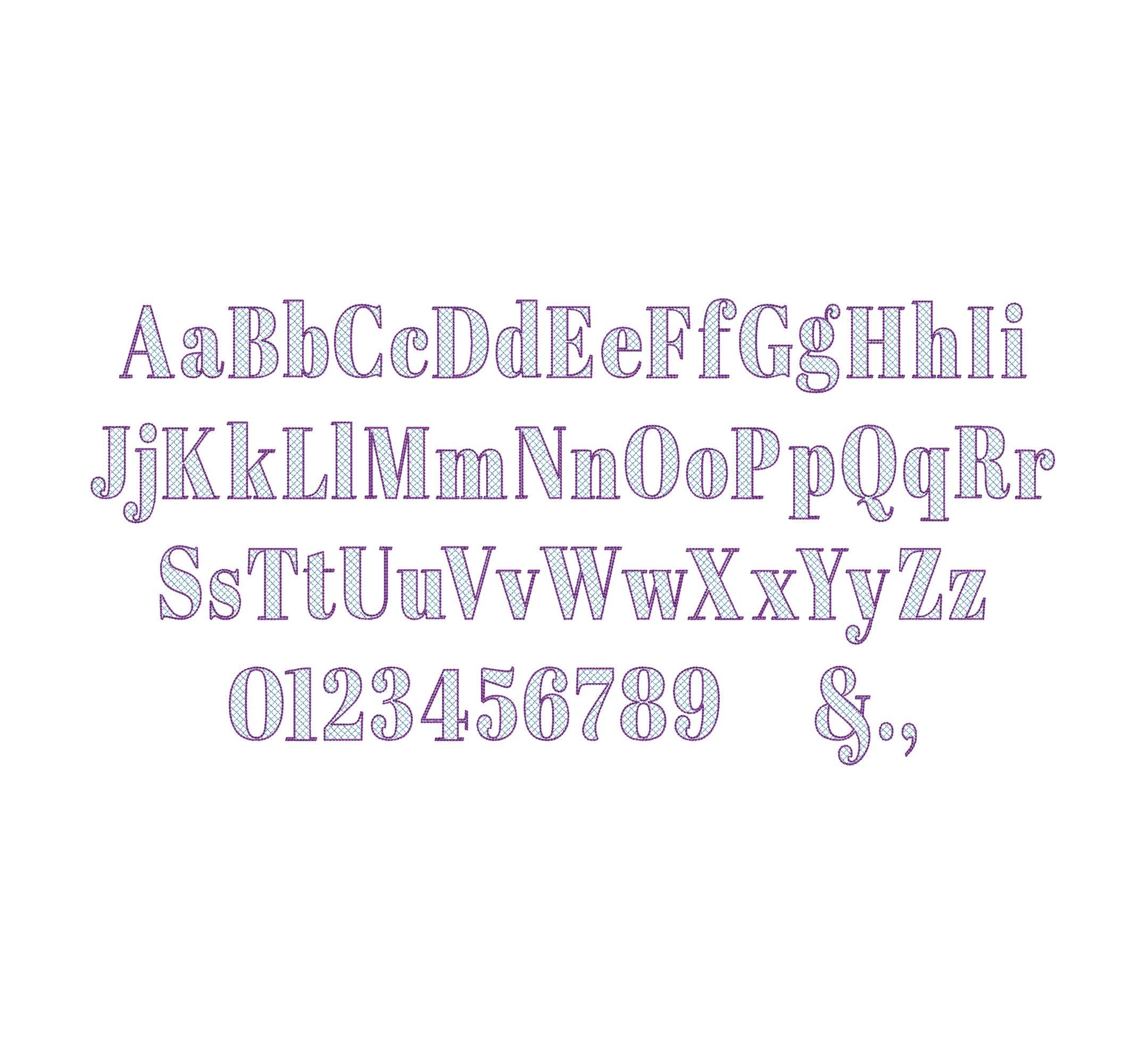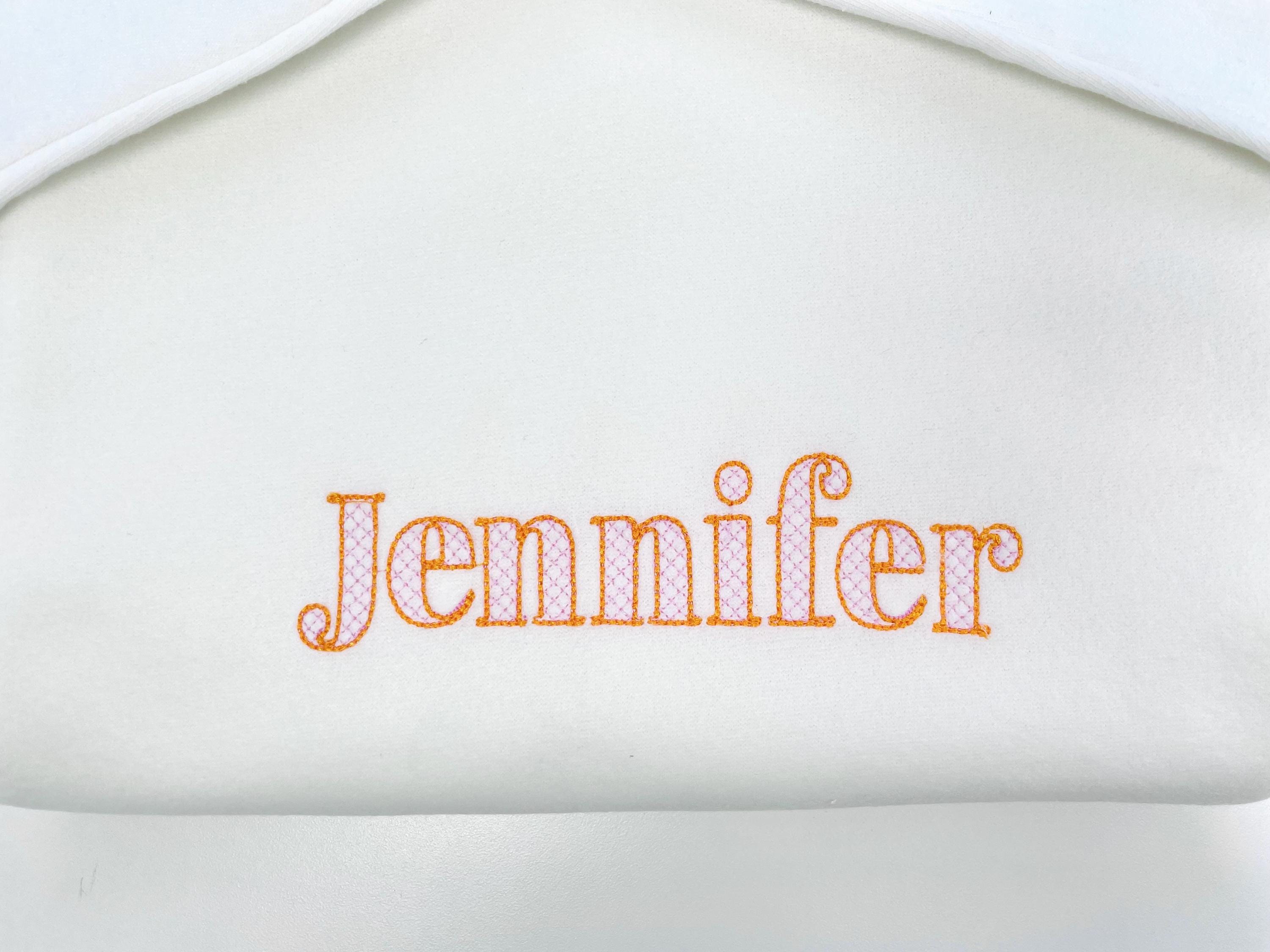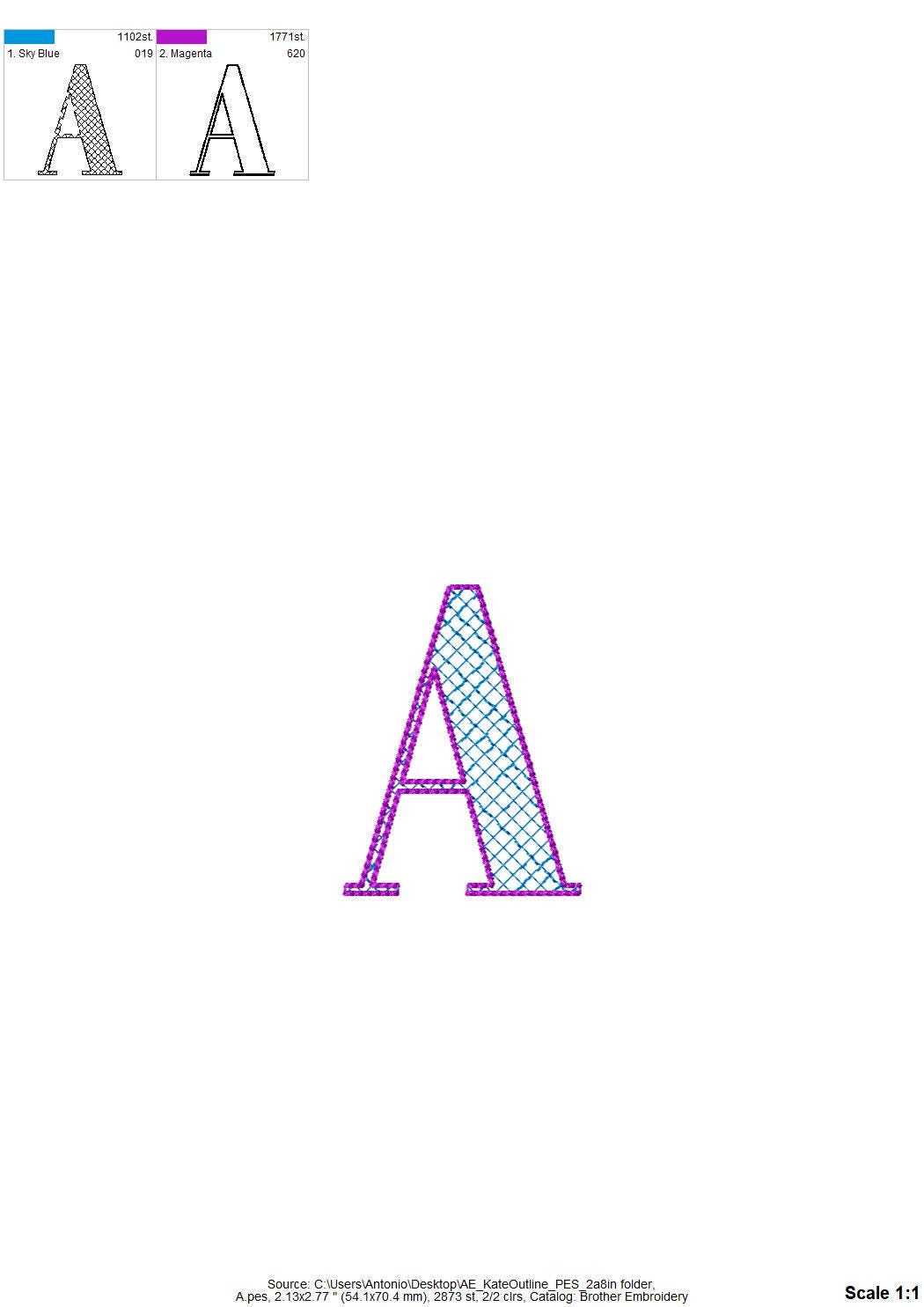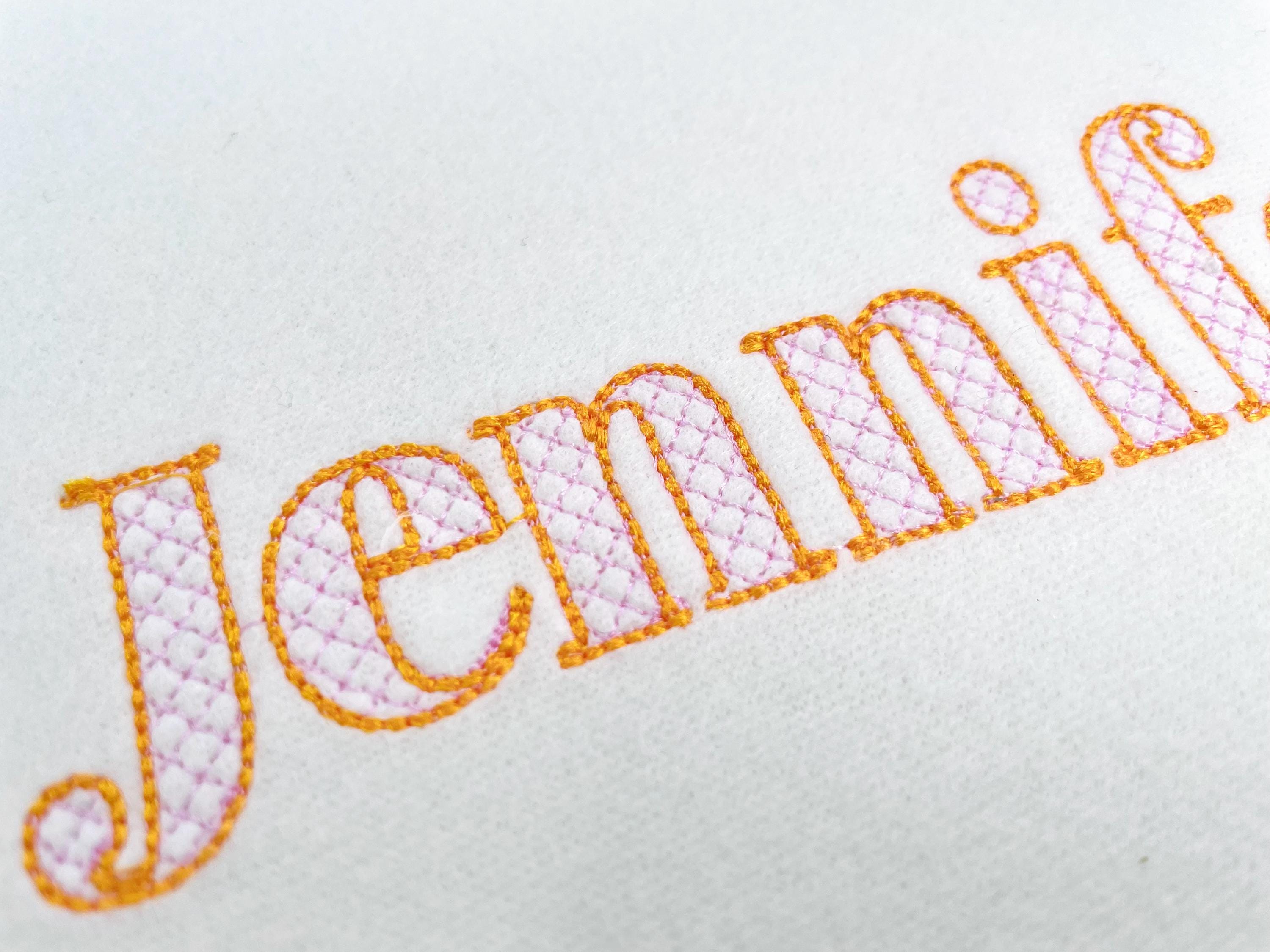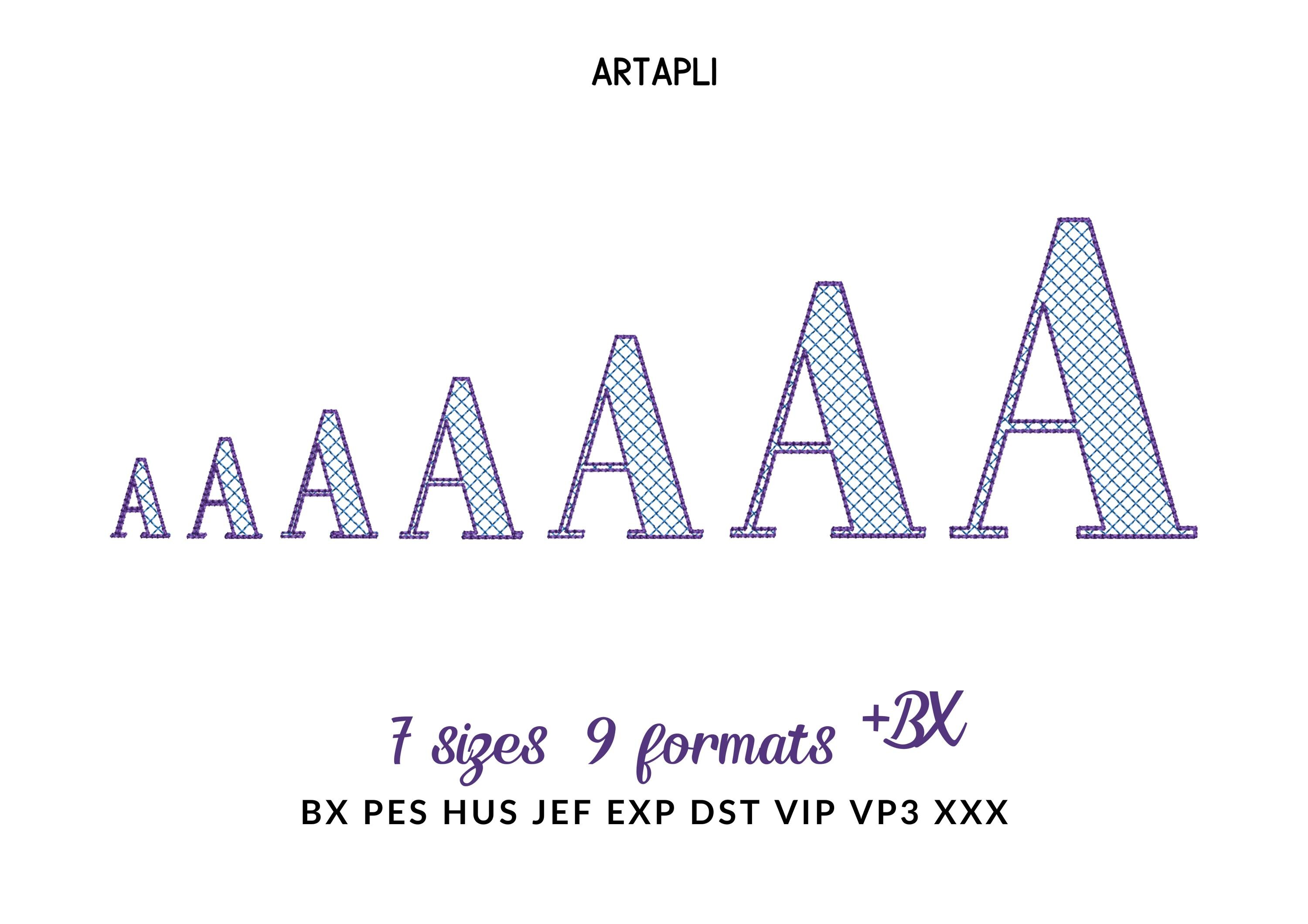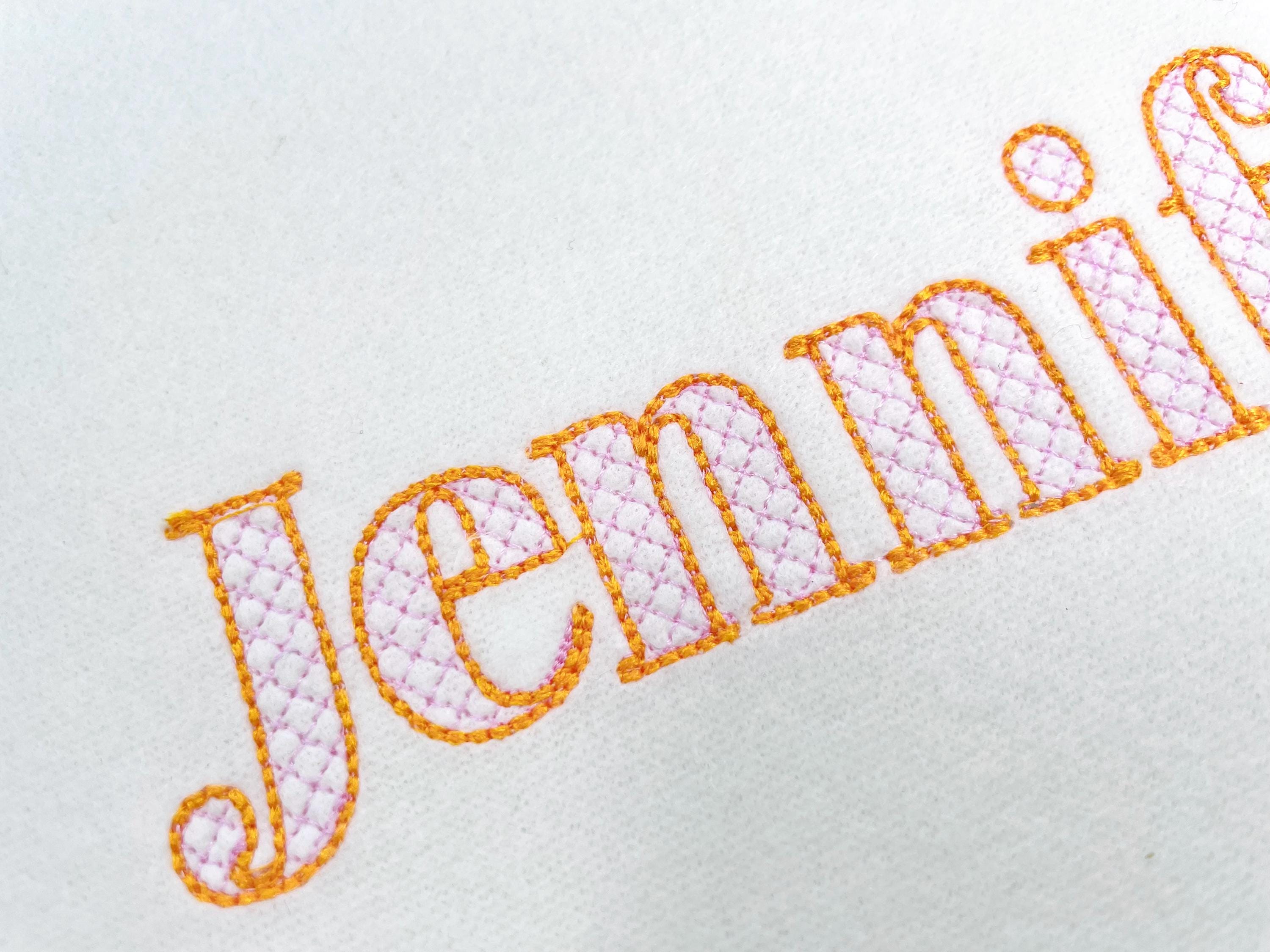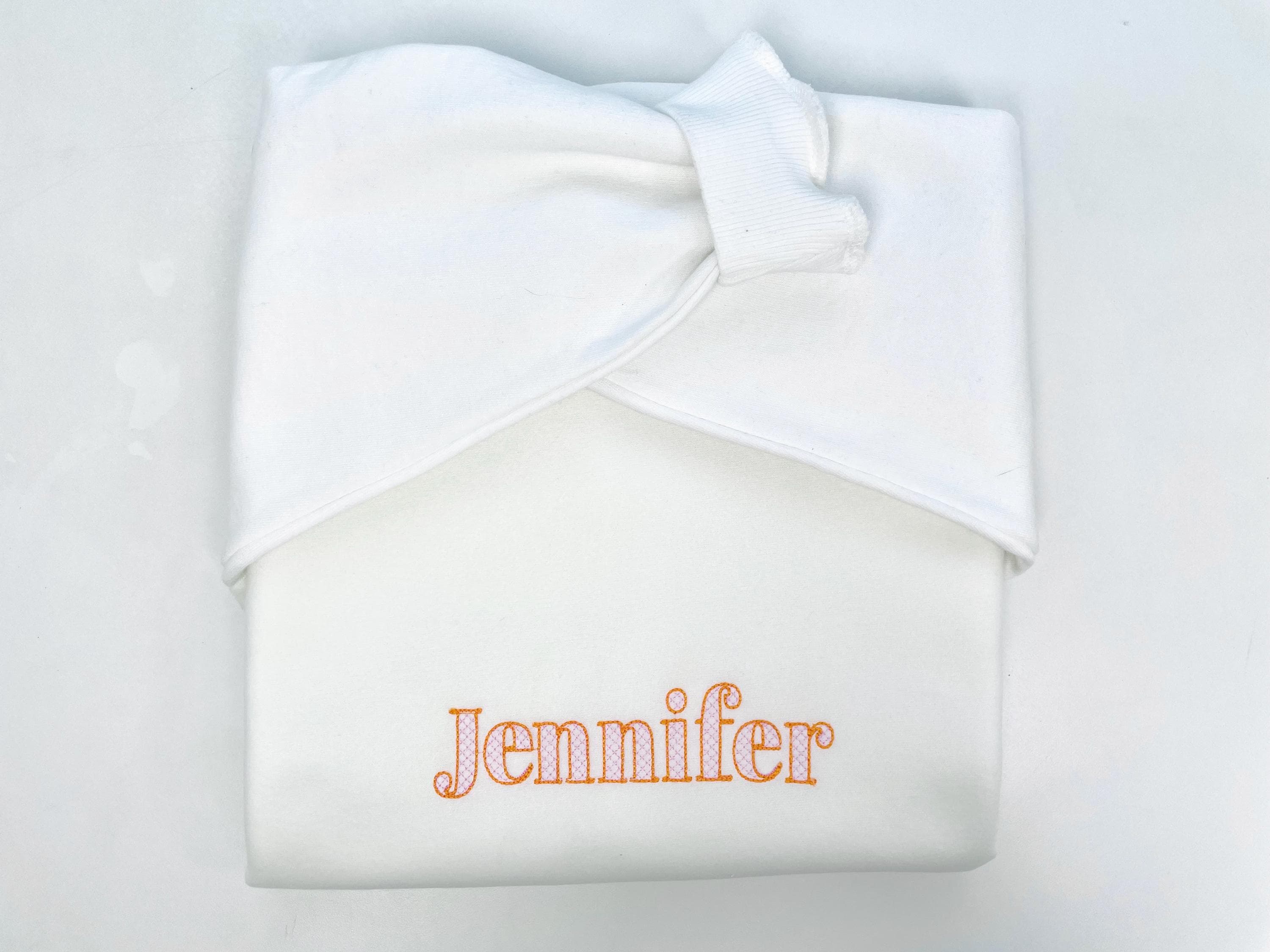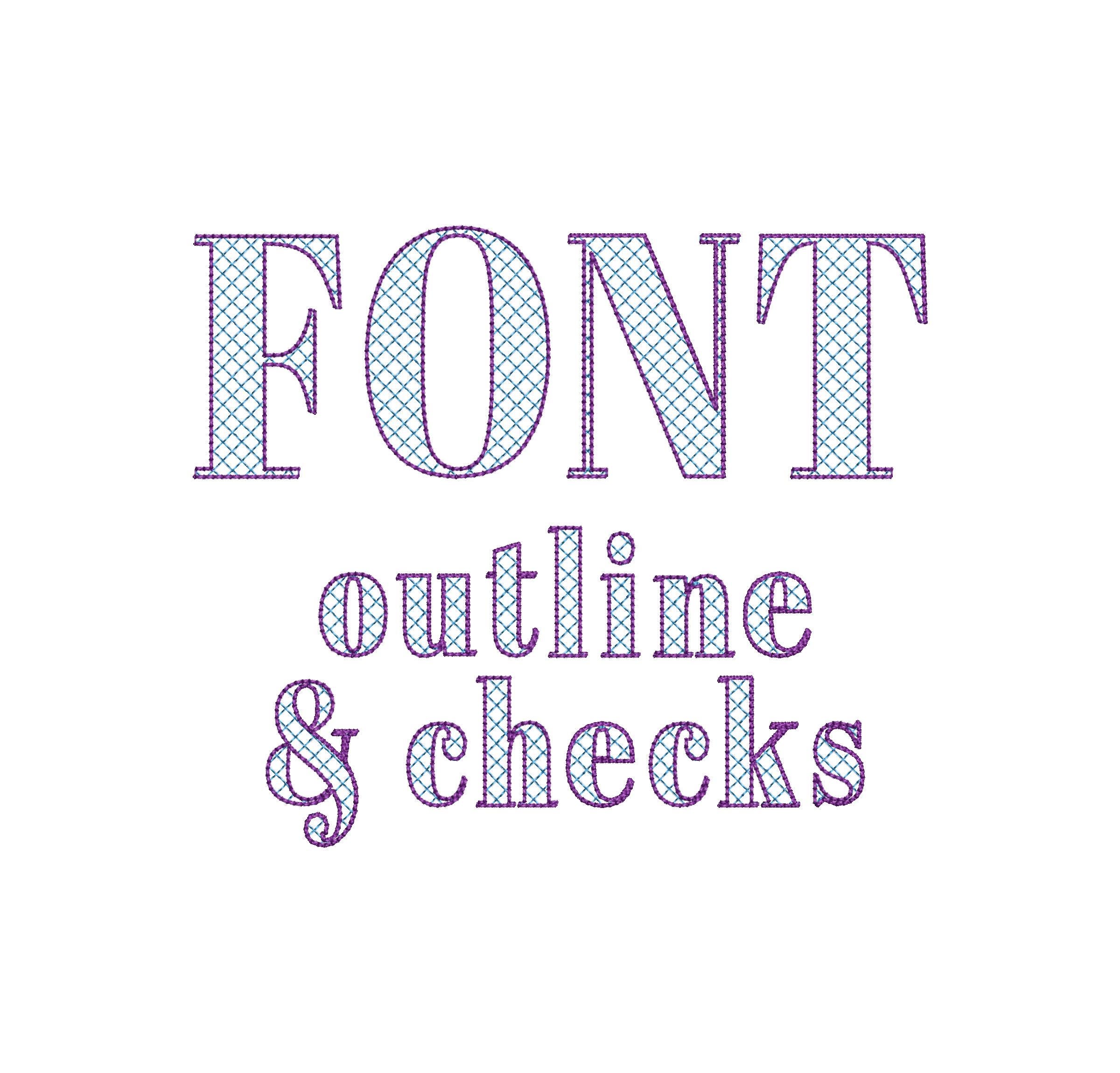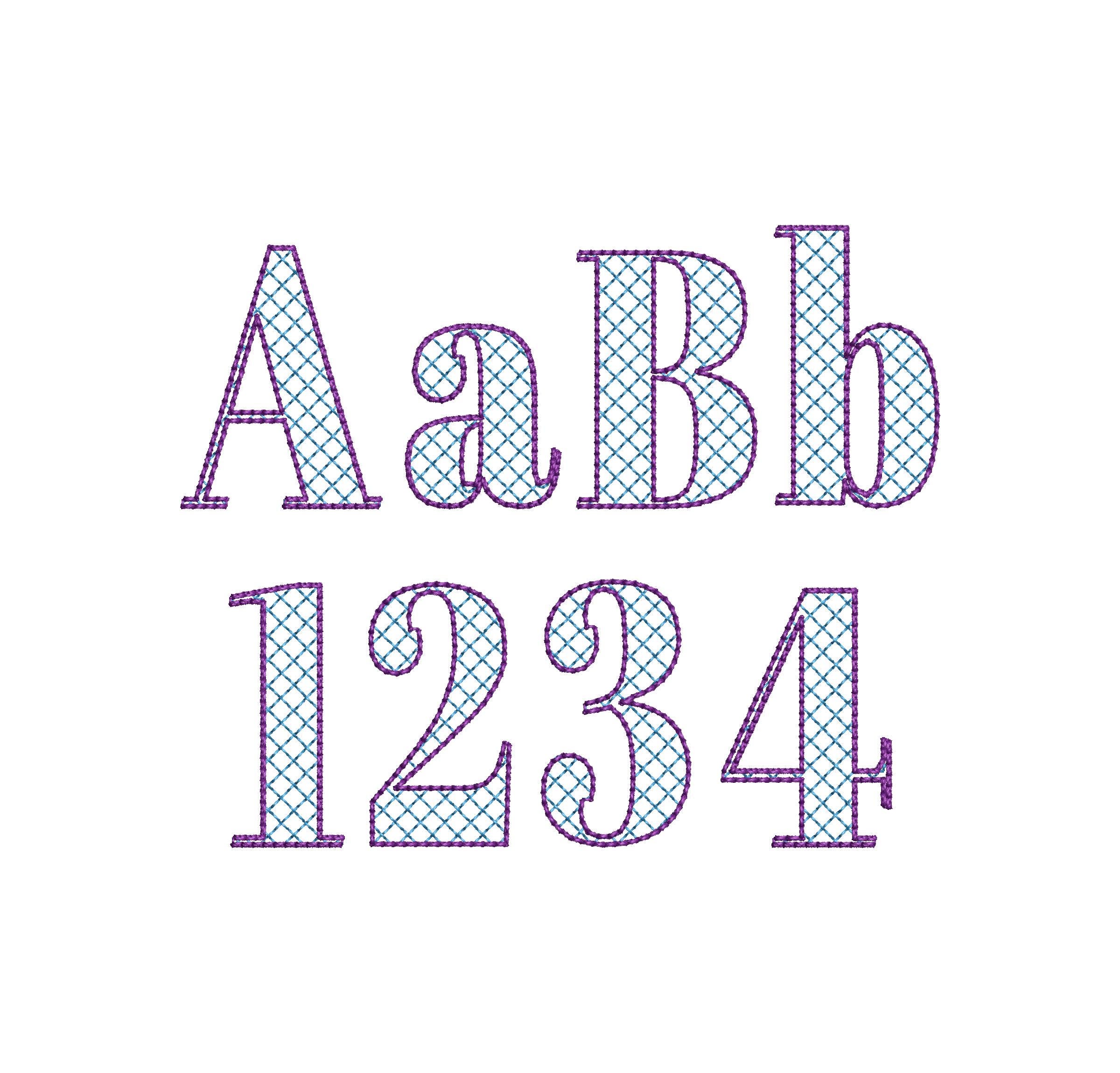
Elegant Font Kate check and outline Block style Font Alphabet Monogram machine embroidery designs many small sizes 0.9 up to 3.5 inch, BX
The checks are part of the embroidery.
The background fabric looks through. Stunning effect.
Whole alphabet - uppercase and lowercase letters Aa-Zz, numbers 0-9, and punctuation.